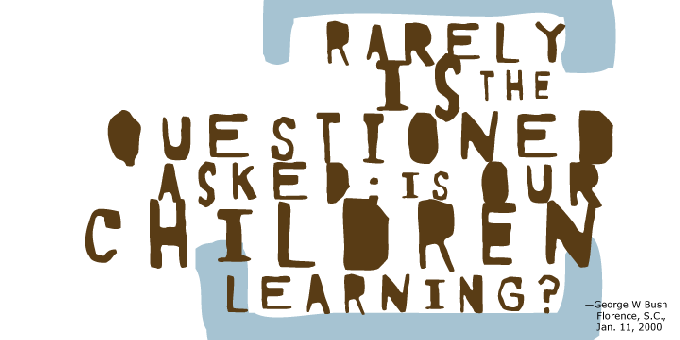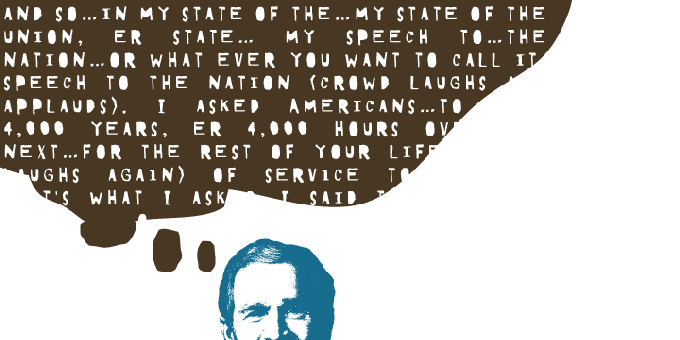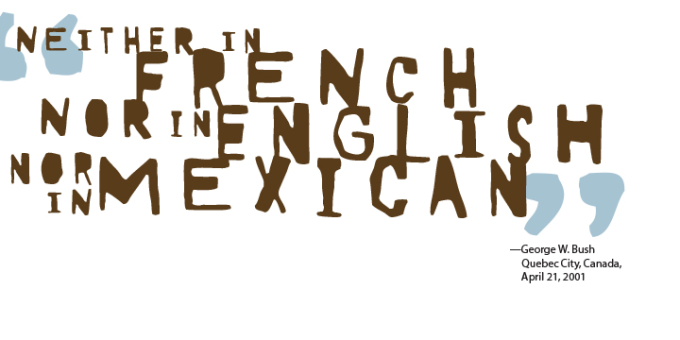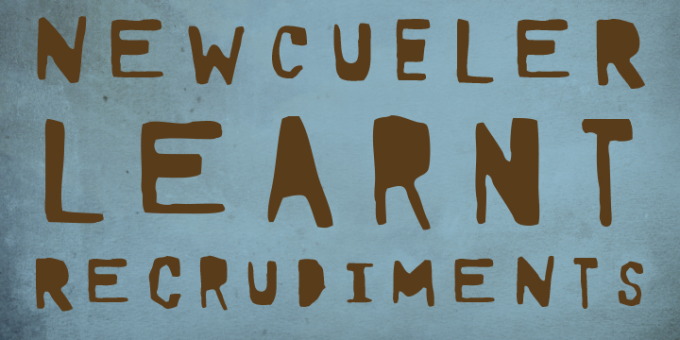
Numbskull
Numbskull may not be the brightest bulb around, but it tries hard. It contains an expanded character set including: Central, Eastern and Western European languages, The Baltic, Cyrillic, Esperanto, Greek and Turkish.